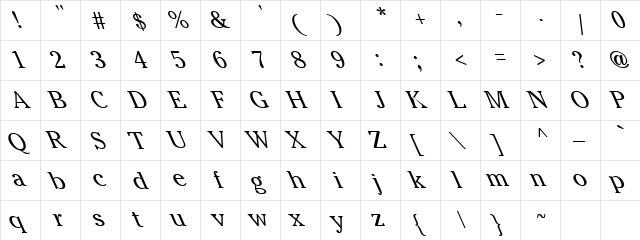
Nobody's Fault 1 Regular
Design Context for Nobody's Fault 1 Typeface
Nobody's Fault 1 is a composed and adaptable typeface that performs quietly and consistently across a wide range of design contexts.